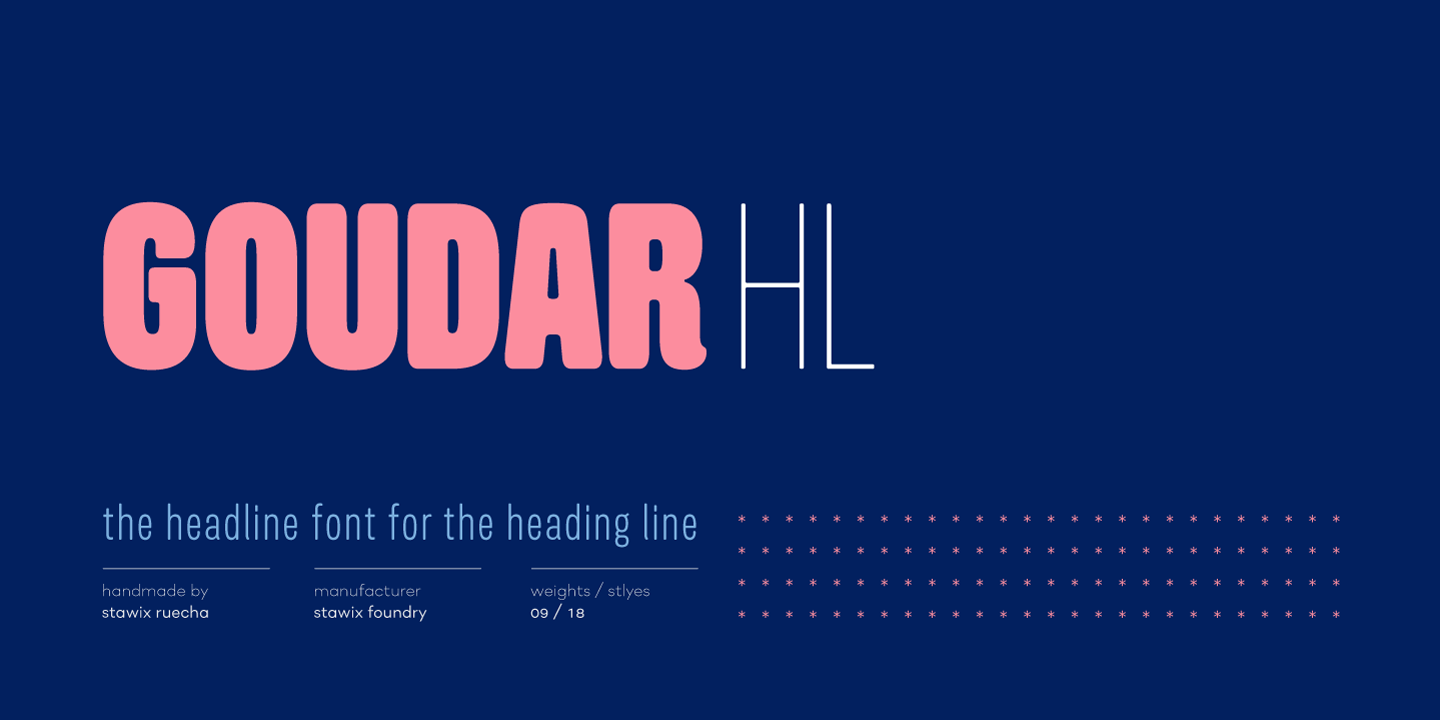
Goudar HL Font is perfect for luxury restaurant branding, gourmet food packaging, culinary magazine headlines, fine dining menus, artisanal product labels, sophisticated wine marketing, upscale bakery signage, premium cheese packaging, exclusive catering materials, and refined culinary academy communications. This elegant typeface excels in applications where gastronomic excellence and culinary sophistication need to be communicated with appetizing refinement and gourmet appeal that embodies the artistry of fine cuisine and exceptional taste experiences.
What makes Goudar HL Font exciting is its remarkable ability to convey the essence of culinary artistry through its thoughtfully crafted letterforms that seem to capture the refined elegance of haute cuisine and the sophisticated presentation of gourmet dining. The font embodies the spirit of gastronomic excellence with its balanced construction and appetizing proportions that suggest the careful plating of a master chef and the refined atmosphere of Michelin-starred establishments. Its carefully considered character details and sophisticated personality create an atmosphere of culinary distinction that resonates with food enthusiasts, chefs, and gourmets who appreciate the finest traditions of culinary craftsmanship.
The Goudar HL Font family typically includes Light, Regular, Medium, and Bold weights, each maintaining the signature culinary characteristics and gourmet sophistication. Some versions offer elegant Italic variants that enhance the flowing grace, decorative elements that amplify the luxurious aesthetic, and special character sets with culinary symbols and international cuisine support. The family may also include condensed variants for efficient menu layouts and display cuts optimized for maximum appetizing impact in restaurant applications.
Whether you're creating gourmet brand identities, fine dining marketing materials, or culinary educational content, Goudar HL Font Free Download delivers the perfect gastronomic refinement your food-focused projects deserve. Its culinary character and gourmet styling make it an invaluable choice for restaurants, food brands, and culinary institutions working in fine dining, gourmet products, and culinary education sectors where authentic gastronomic sophistication and appetizing presentation are essential for attracting discerning food lovers who demand exceptional quality and refined taste experiences.